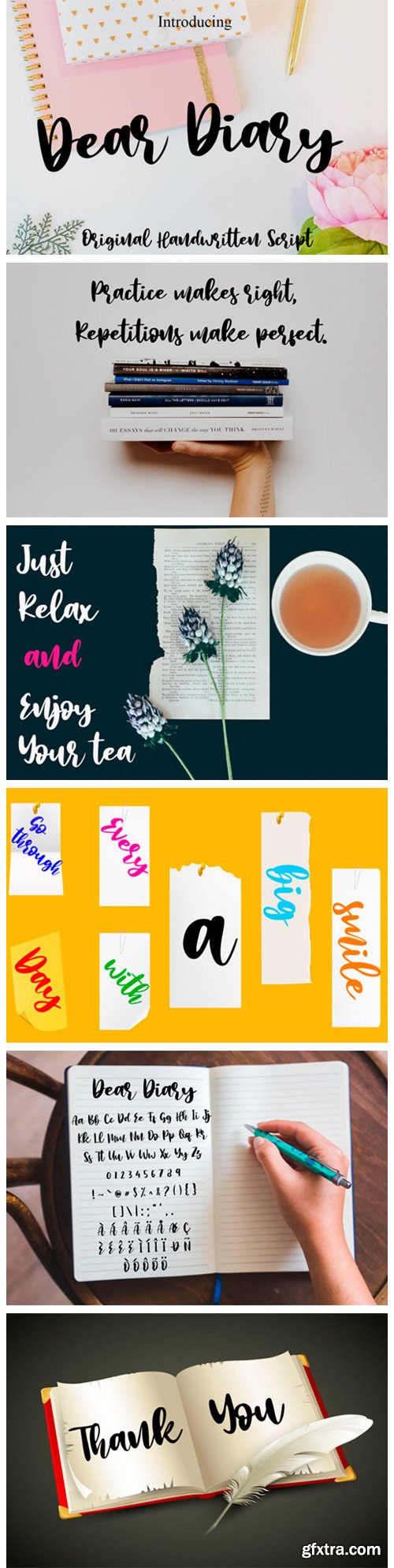
Dear Diary Font
Dear Diary is a cute handwriting font. It features an incredibly classic style, while still keeping a friendly feel. Dear Diary is the perfect font for making original and outstanding designs.